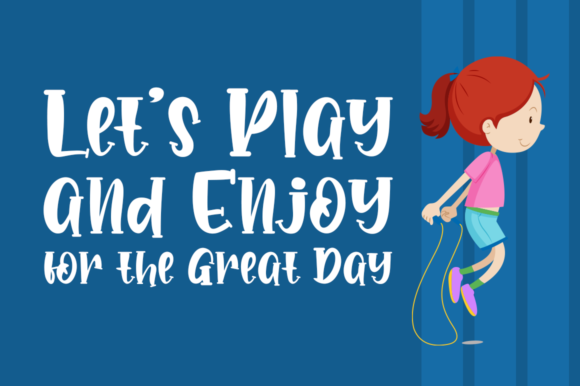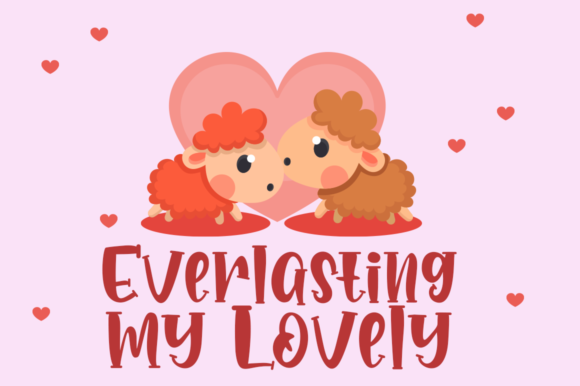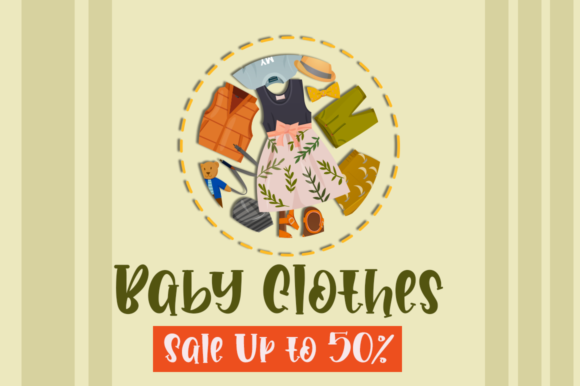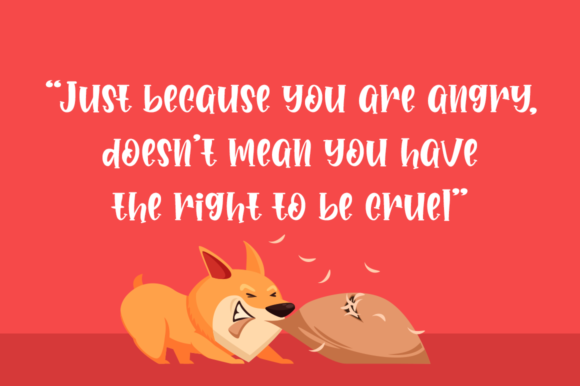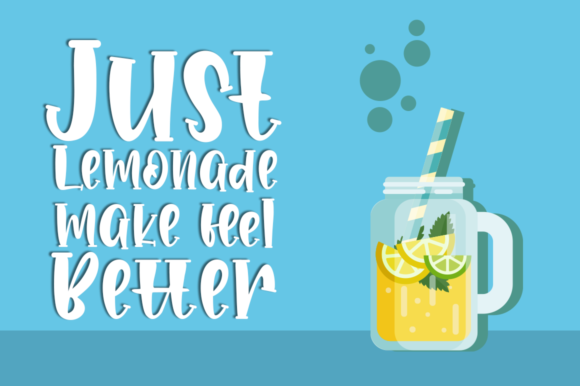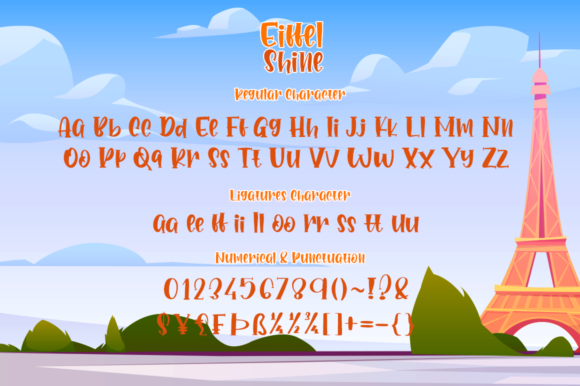
The Eiffel Shine Font: A Sparkling Gem for Creative Projects
I’ll never forget the time I was working on a project for a client who wanted a font that embodied fun, quirkiness, and authenticity. I had spent hours scouring the internet for the perfect match, but nothing seemed quite right. That was until I stumbled upon the Eiffel Shine font. It was like a breath of fresh air – a beautiful, enchanting handwritten font that turned my entire project around. In this article, I’ll share my love for Eiffel Shine, its features, and how to make the most of it in your creative projects.
A Personal Review: What I Love About Eiffel Shine
Eiffel Shine has quickly become one of my go-to fonts, and for good reason. Here are some things I love about it:
- ✨ Unique and eye-catching: Eiffel Shine has a distinctive, hand-crafted feel that sets it apart from more generic fonts.
- ✅ Highly versatile: Whether you’re working on a logo, a poster, or a social media graphic, Eiffel Shine adapts beautifully to different contexts.
- 💫 Fun and playful: This font is perfect for projects that require a bit of whimsy and personality.
While Eiffel Shine is an amazing font, it’s not without its quirks. Here are a few things to keep in mind:
- 🤔 Legibility at small sizes: Like many script fonts, Eiffel Shine can be a bit tricky to read at very small sizes. It’s best used at larger sizes (24pt or bigger) for optimal legibility.
- ⚠️ Overuse of swashes: While Eiffel Shine’s swashes are beautiful, using too many can make your text look cluttered. Use them sparingly to add a touch of elegance.
While the actual designer of Eiffel Shine might not be widely known, it’s clear that they were inspired by the elegance and romance of handwritten scripts. The font’s creator aimed to capture the essence of Parisian charm and joie de vivre, infusing it with a modern twist that makes it perfect for a wide range of creative projects.
| Font Name | Eiffel Shine Font |
| Author | Haksen |
| Is Eiffel Shine suitable for body text? | While Eiffel Shine is beautiful, it’s best used for headlines and short paragraphs due to its script nature and potential legibility issues at smaller sizes. |
Eiffel Shine is more than just a font – it’s a way to add personality, elegance, and fun to your creative projects. With its unique look, versatility, and range of OpenType features, it’s sure to become a favorite in your design toolkit.